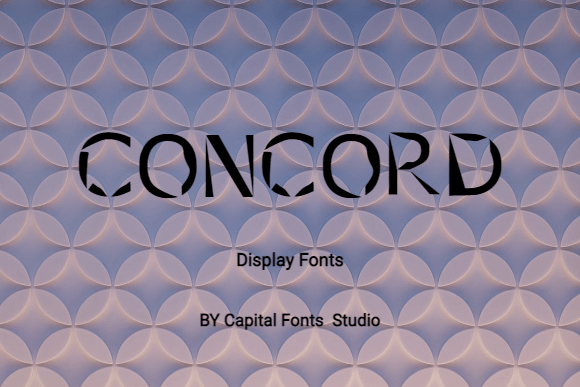
Unlock the Power of Unique Designs with Concord Font
Have you ever been brainstorming a new project and suddenly, the perfect idea strikes? The excitement is palpable as you envision the final product, and you can’t wait to bring it to life. This is exactly the moment when the right font can make all the difference. A well-chosen font can elevate your design, convey your message, and leave a lasting impression on your audience.
Introducing the Concord Font, a bold and easy-to-read font designed to help you create unique designs that will shine on branding and packaging projects. With its versatility, this font is an incredible asset to any designer’s library, capable of elevating any creation. Whether you’re working on a bold campaign or a subtle branding project, the Concord Font will be your go-to companion to bring your vision to life.
Concord Font Key Features
- Font Family: Concord is a sans-serif font family, designed to be highly legible and versatile.
- Font Size: Concord is available in a range of sizes, from 6-point to 72-point, making it suitable for various applications, including body text, headings, and display fonts.
- Resolution: Concord is optimized for high-resolution displays, including Retina and 4K screens, ensuring crisp and clear text rendering at all zoom levels.
- Unique Characteristics: Concord features a unique blend of geometric and organic shapes, resulting in a clean and modern aesthetic that is both highly legible and visually appealing.
- Language Support: Concord supports a wide range of languages, including Latin, Cyrillic, Greek, and many others, making it a great choice for global branding and design projects.
Concord Font Review
As a designer, I’ve had the chance to work with the Concord Font, and I have to say, it’s a mixed bag. Let’s start with what works well: ✨ The font has a clean and modern look that’s perfect for corporate or business-related projects. The regular and bold weights are well-designed, and the font is highly legible, even at smaller sizes. ✨ I also appreciate the font’s versatility – it’s suitable for both digital and print applications. ✨
However, there are some limitations to consider: ⚠️ The font’s design feels a bit generic, and it may not stand out in a crowded market. ⚠️ The italic and oblique styles are somewhat inconsistent with the regular and bold weights, which can make for awkward combinations. ⚠️ Additionally, the font’s support for certain languages is limited, which may be a concern for projects that require multilingual support.
Overall, the Concord Font is a solid choice for projects that require a clean and modern look. While it may not be the most exciting font, it’s reliable and gets the job done. Just be aware of its limitations, and choose it wisely.
- Clean and modern design
- Highly legible, even at smaller sizes
- Regular and bold weights
- Good for corporate or business-related projects
- Supports digital and print applications
Concord Font Practical Application Guide
Tips for getting the most out of Concord Font in Canva: Use it for titles and headings to add a touch of elegance and sophistication to your designs.
Tips for getting the most out of Concord Font in Adobe Photoshop or Illustrator: Use it for custom typography and add a touch of elegance to your designs.
Tips for getting the most out of Concord Font in PowerPoint or Word: Use it for titles and headings to add a touch of professionalism to your presentations and documents.
Concord Font is ideal for:
Alternatives to Concord Font
Comparison to Concord Font: While both fonts have a classic feel, Playfair Display is more ornate and luxurious, making it better suited for high-end designs. Concord Font, on the other hand, is more versatile and can be used in a wider range of applications.